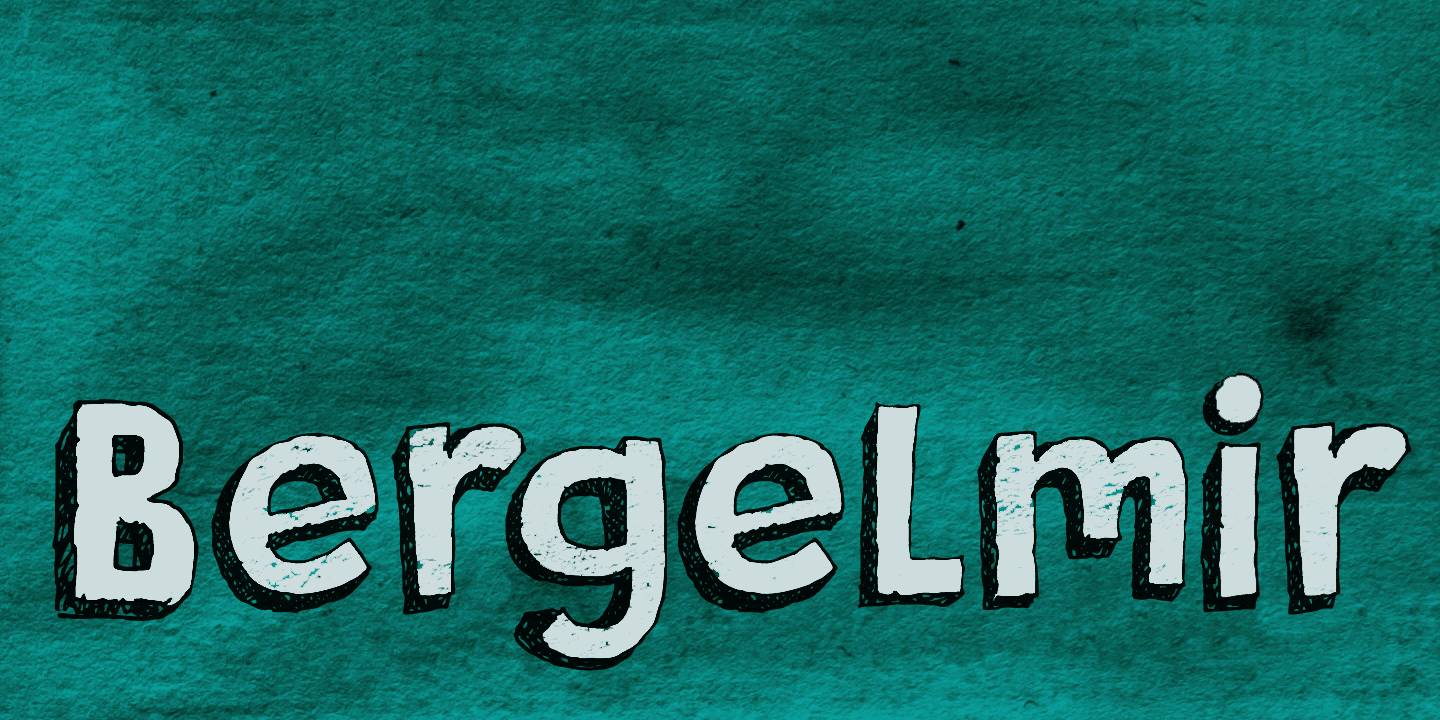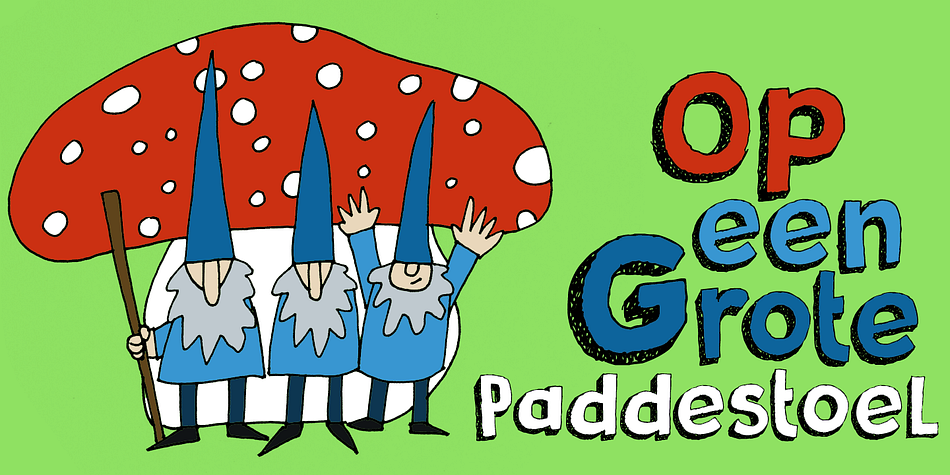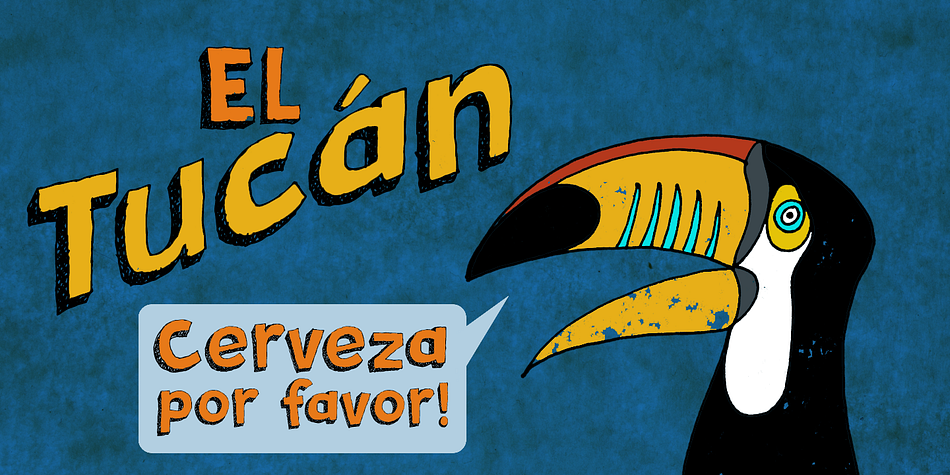
Bergelmir is a hand display font published by Hanoded.
It is BIG, it is IN YOUR FACE, it is… Bergelmir font! Comes with character, bravado and fun, language support and legibility. Bergelmir is a typographic Ice Giant!